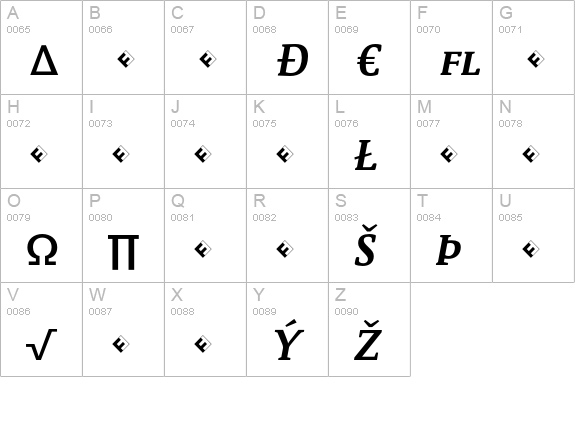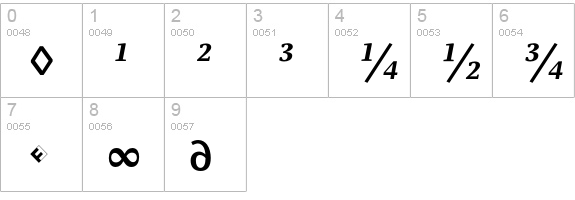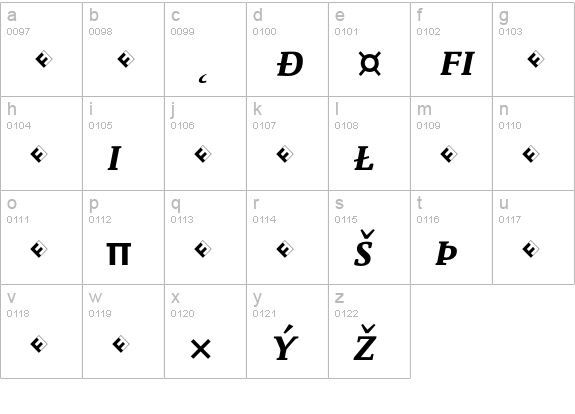
Parable-BoldSCItalicExpert Font Details
Parable-BoldSCItalicExpert is an exquisite and elegant font that adds a touch of sophistication to any design project. Its bold and italic styling exudes confidence and creativity, making it ideal for conveying strong messages and capturing attention. This font is expertly designed with carefully crafted curves and intricate details, resulting in a unique and captivating typeface. The cursive italic style adds a sense of fluidity and grace, making it perfect for projects that require a touch of elegance. What sets Parable-BoldSCItalicExpert apart is not just its stunning design, but also its availability for free. That's right, this exceptional font can be freely downloaded from FontsMarket.com, allowing designers, artists, and enthusiasts to access its beauty without any cost. Whether you're working on a branding project, a logo design, or any creative endeavor that requires a bold and sophisticated font, Parable-BoldSCItalicExpert is the perfect choice. Its versatility and unique design make it suitable for a wide range of applications, from print materials to digital media. With Parable-BoldSCItalicExpert, you can effortlessly elevate your designs and make a lasting impression. So why wait? Head over to FontsMarket.com and download this remarkable font for free, and let your creativity soar.